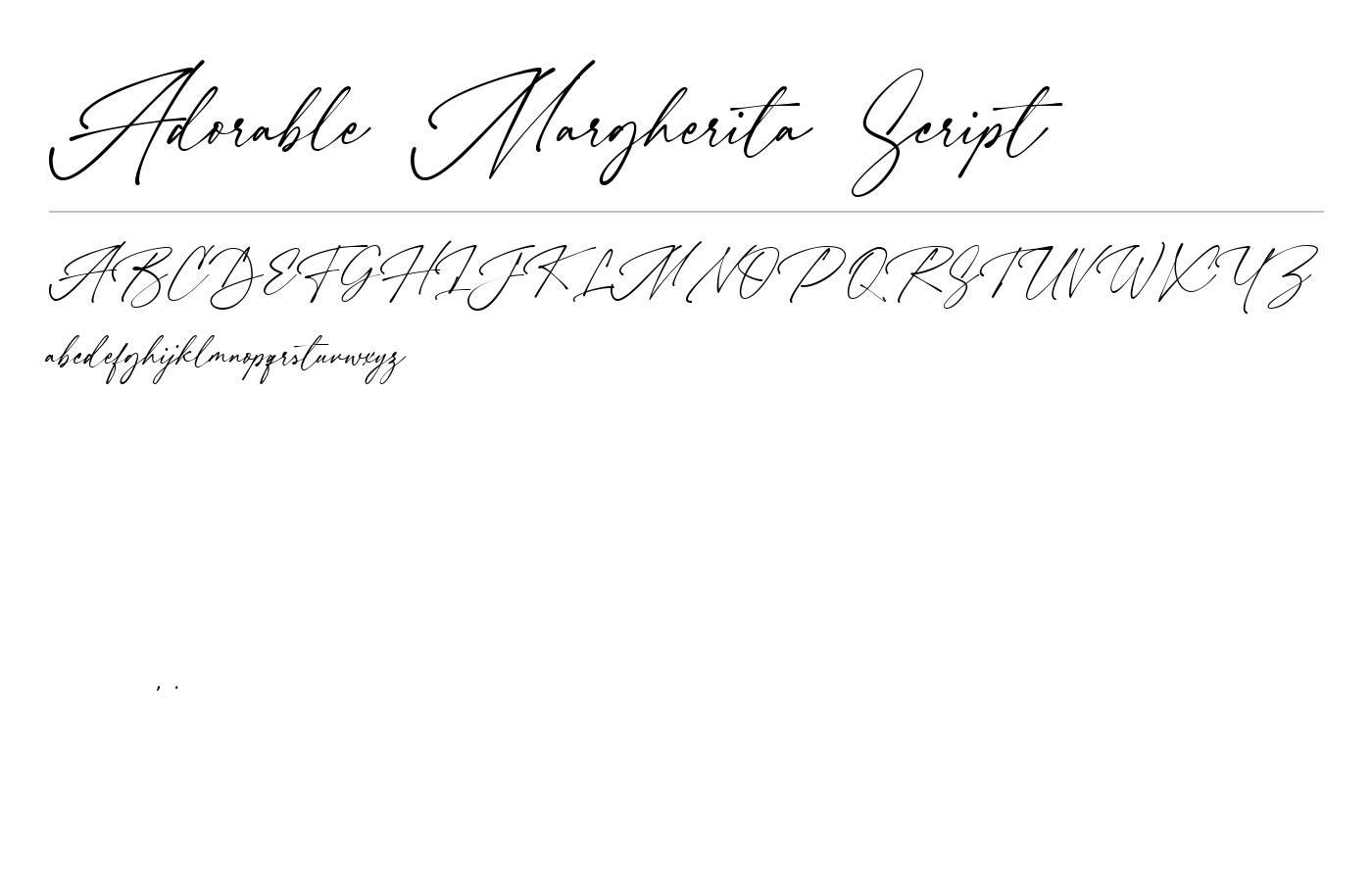
Adorable Margherita is a delicate, elegant script font with slender, flowing strokes that mimic natural handwriting. Its light weight and airy spacing give it a graceful, romantic feel, making it ideal for wedding invitations, branding, and feminine or sophisticated designs that require a personal touch. This font shines in headlines and decorative accents where refinement and charm are key.
| Font family | Adorable Margherita Font |
| Designer | Siti Saribanon Nurjannah and Muhammad Ridha Agusni |